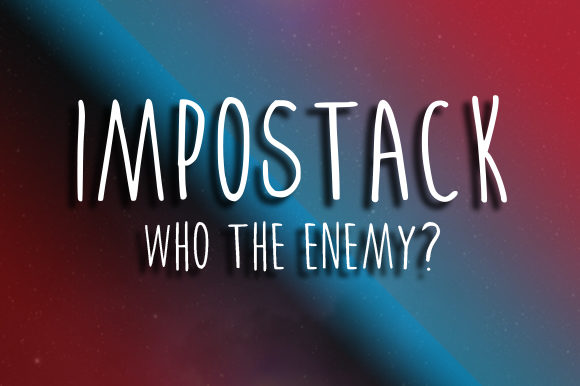
Welcome to the enchanting world of Impostack Font, a delightful handwritten script that will captivate your heart and elevate your designs. Created by the talented GoldenFlower, Impostack is not just a font; it's an expression of love and creativity.
Picture this: You're crafting the vows that will unite two hearts forever. The words are sacred, filled with promises and emotions that transcend time. You want every letter to convey the depth of your feelings, to dance across the page with grace and elegance. That's where Impostack comes in, effortlessly transforming your vows into a breathtaking masterpiece.
With its natural and unique style, Impostack effortlessly complements any design, from elegant wedding invitations to heartfelt letters. It's as if each character whispers sweet nothings, carrying your message with warmth and affection. Whether you're designing a poster for a special event or creating a personalized gift, Impostack adds a touch of magic that will leave a lasting impression.
But Impostack isn't just limited to romantic gestures. It's also a versatile font that can bring life to a wide range of projects. From whimsical greeting cards to captivating social media posts, Impostack has the charm and versatility to elevate your ideas.
Experience the magic of Impostack, where every letter tells a story and every design becomes a work of art.